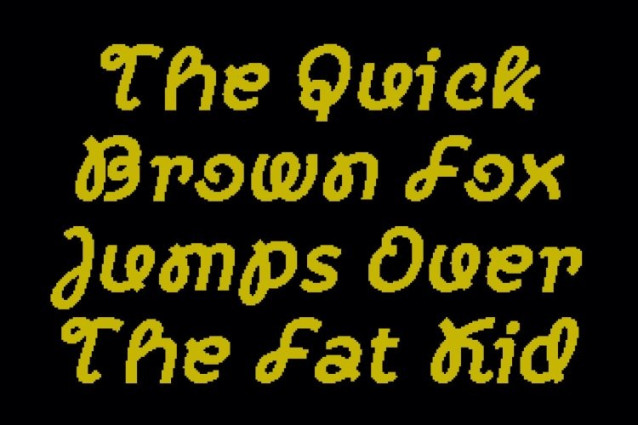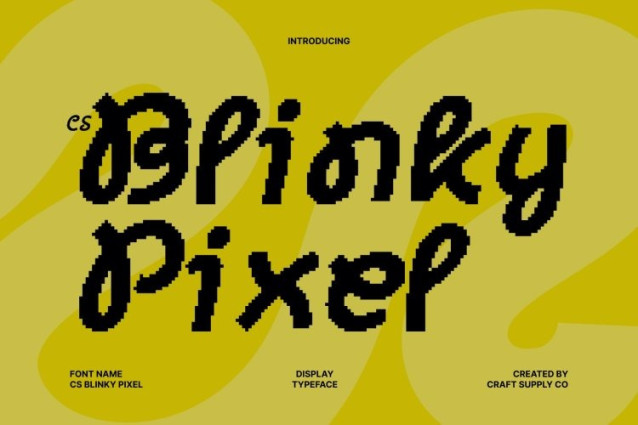
CS Blinky Pixel Font
CS Blinky Pixel Font This is a modern experimental sans serif font designed to celebrate creativity and originality through a playful pixel approach. Its unconventional letterforms and lively construction break away from rigid norms, resulting in a typographic style that feels fresh, expressive, and visually exciting. The pixel influence adds a digital character that feels fun and contemporary.
Distinctive Shapes with Creative Rhythm
Each character is built from clean geometric foundations combined with quirky pixel details. These playful irregularities create a unique rhythm across the alphabet, giving the font strong personality without losing structure. The result is a bold visual voice that feels artistic, curious, and full of motion.
Playful Energy for Creative Branding
This font is ideal for projects that aim to stand out with originality and charm. It works beautifully in logos, posters, editorial layouts, and digital visuals where creativity takes center stage. Its pixel-driven style adds character and innovation, making branding feel youthful, imaginative, and modern.
Versatile, Fun, and Digitally Expressive
Despite its experimental nature, this font maintains solid readability and balance. It adapts well across digital platforms, creative campaigns, and playful design concepts. Perfect for designers who value freedom and expression, this font delivers a joyful, bold, and innovative typographic experience.